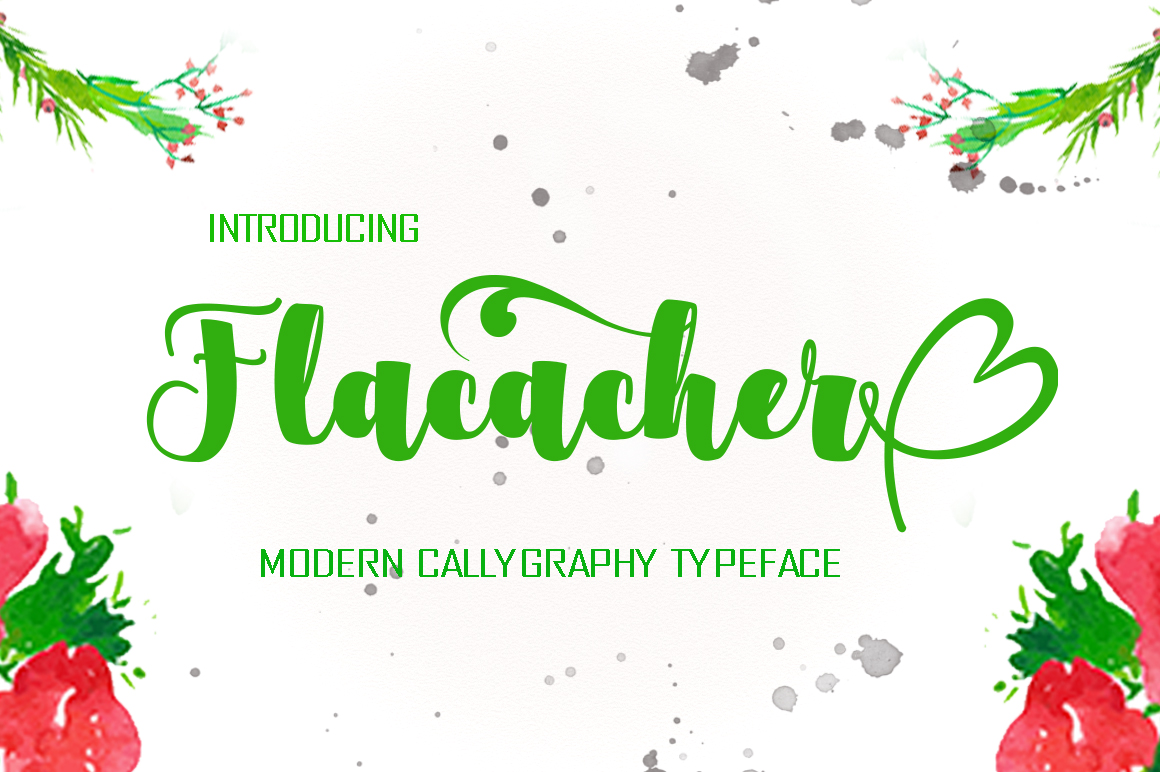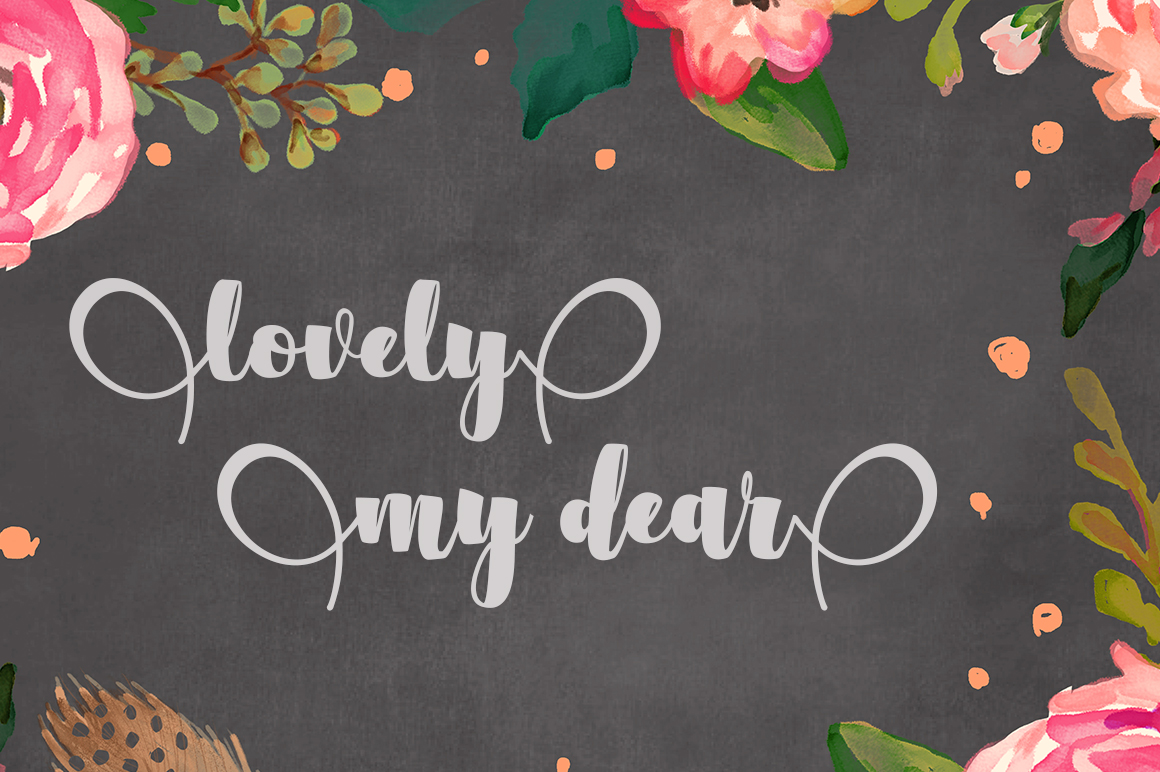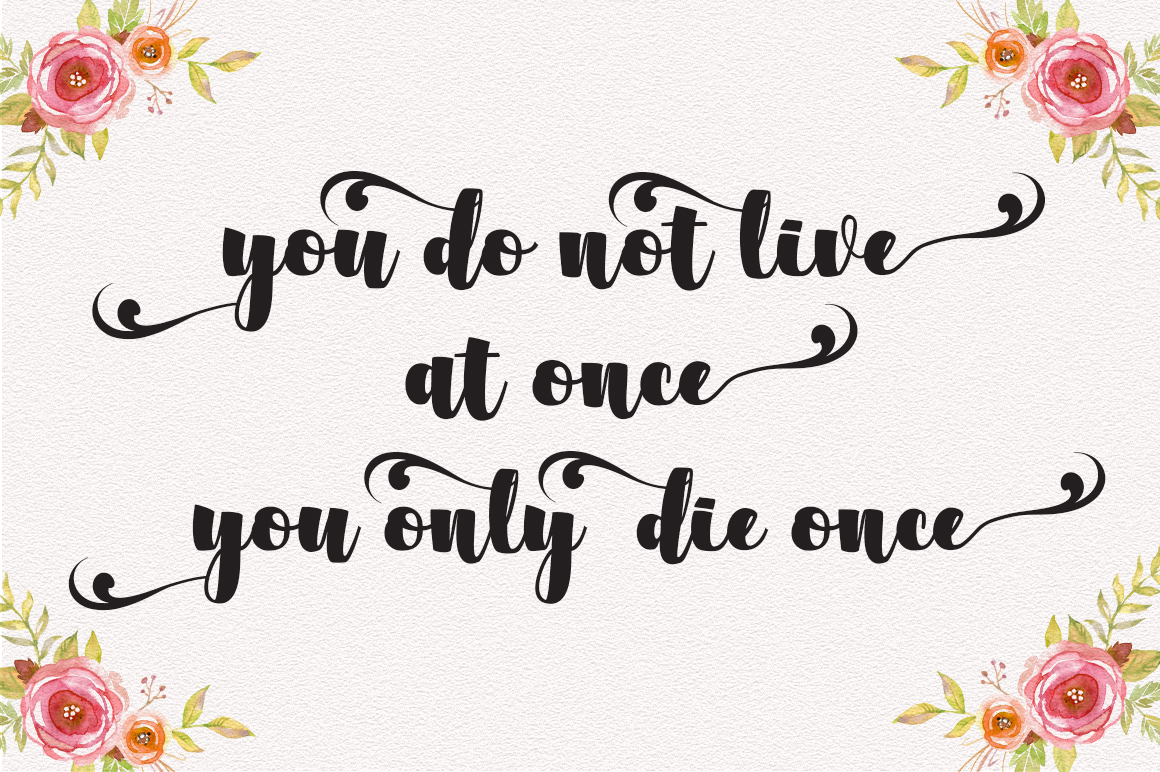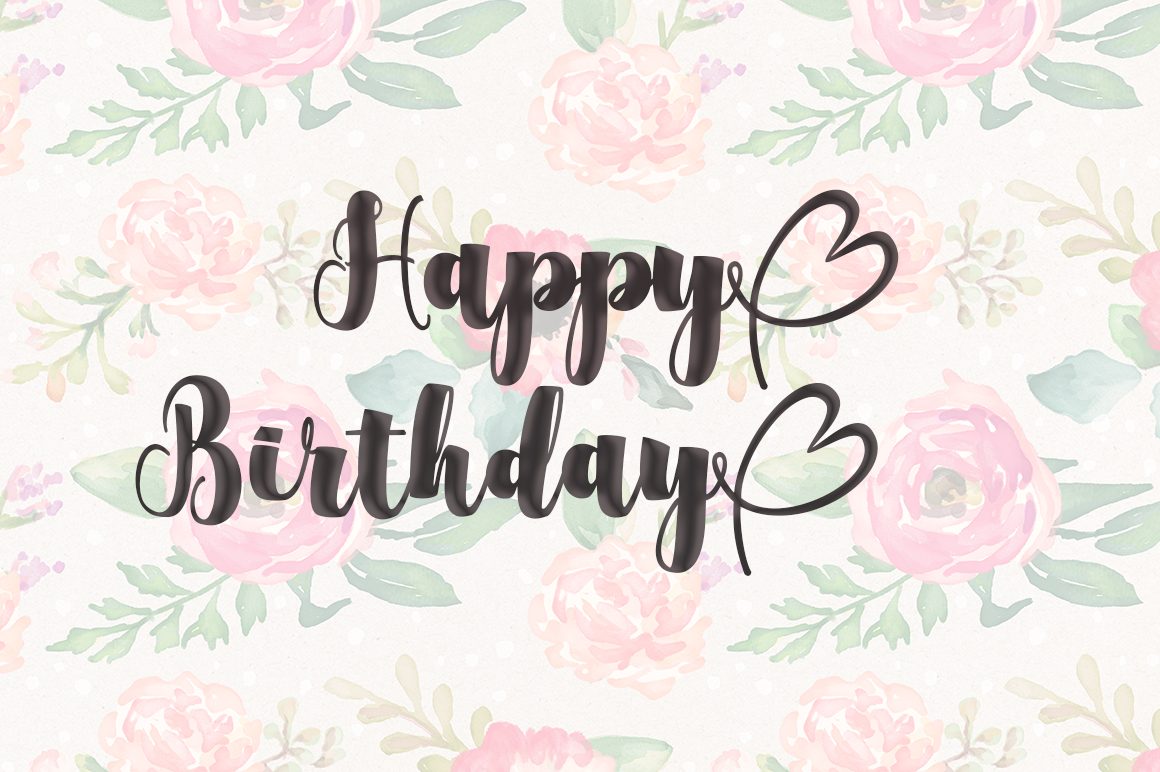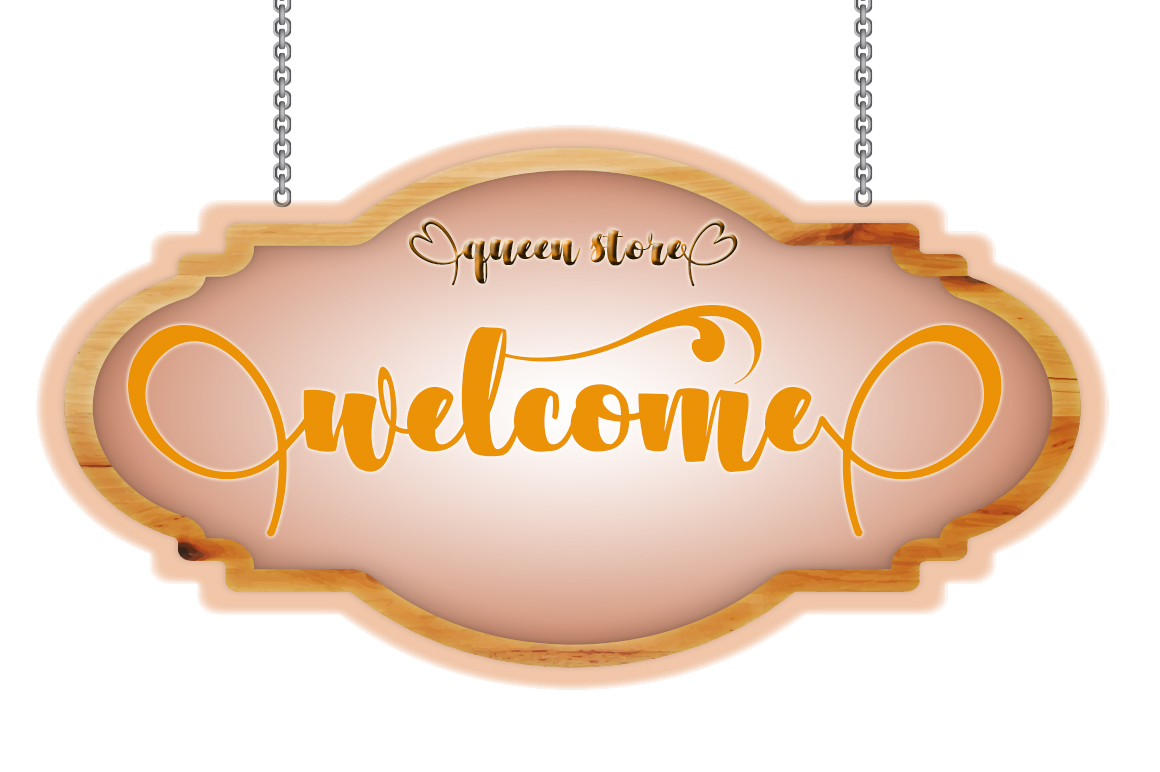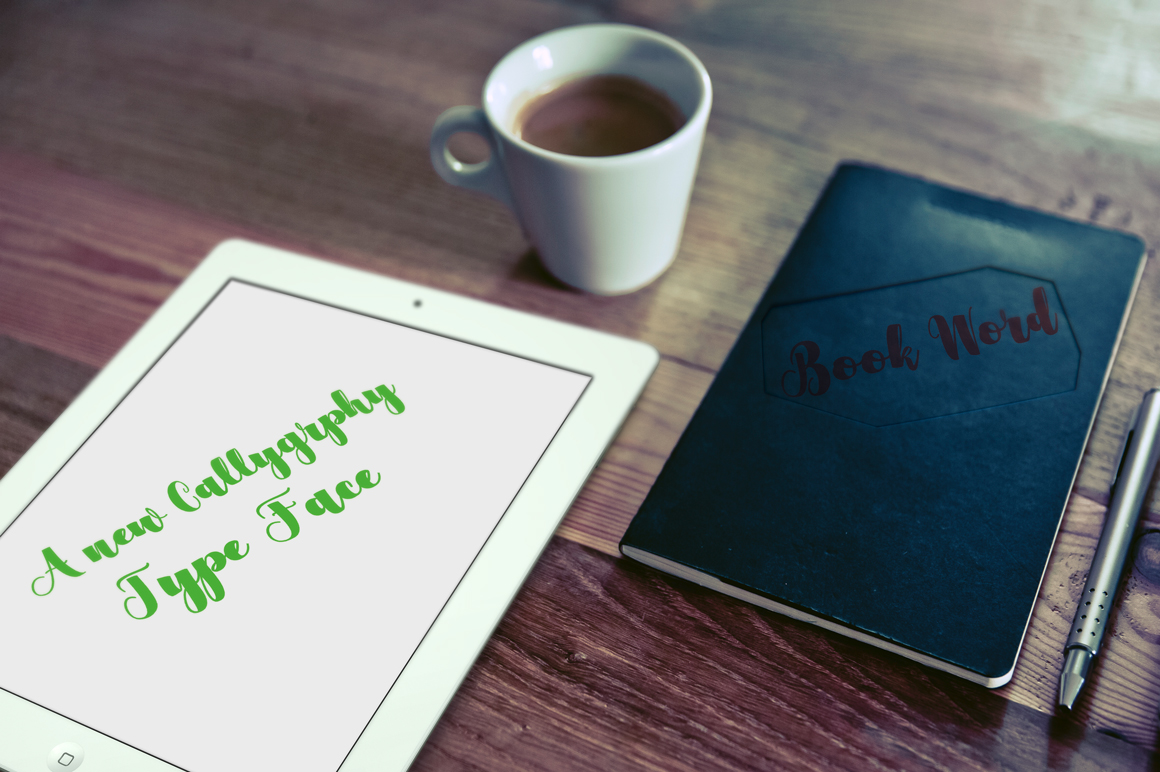
HomeScript FontsFlacacher Font Script Fonts Flacacher Font FacebookXPinterestWhatsApp Flacacher Font Poster 2 Flacacher Font Poster 3 Flacacher Font Poster 4 Flacacher Font Poster 5 Flacacher Font Poster 6 About Flacacher Font Flacacher is a modern, thick handdrawn script. DOWNLOAD ON CREATIVE FABRICAThis font is sold and delivered by Creative Fabrica. Font Canyon may earn a commission if you buy through this link. People also explored The Silhouette Catherine Font Moonlight Font Kalamata Font Kamilah Font Havergie Font Insect Lovely Font Romantic Butterfly Font American Monograms 266 0 TagsFlacacher Font Previous articleHammerte FontNext articleAcrobad Font LEAVE A REPLY Cancel reply Comment: Please enter your comment! Name:* Please enter your name here Email:* You have entered an incorrect email address! Please enter your email address here Website: Save my name, email, and website in this browser for the next time I comment. Personal Use Free Doodle Font Personal Use Free Read more about this font Huntry Personal Use Free Read more about this font Travelling Free Brush Personal Use Free Read more about this font Blast Personal Use Free Read more about this font BLOG Free vs Paid Fonts: Why Investing in Premium Fonts Is Worth It Free vs Paid Fonts: Why Premium Fonts Are Worth It in 2025 The debate of free vs paid fonts continues in the design world. While... How to Cut Any Font on Cricut: Convert a Font to SVG (Free) Elegant Wedding Invitation Fonts – Handwritten & Script Fonts 5 Fonts That Will Dominate Design Trends in 2026